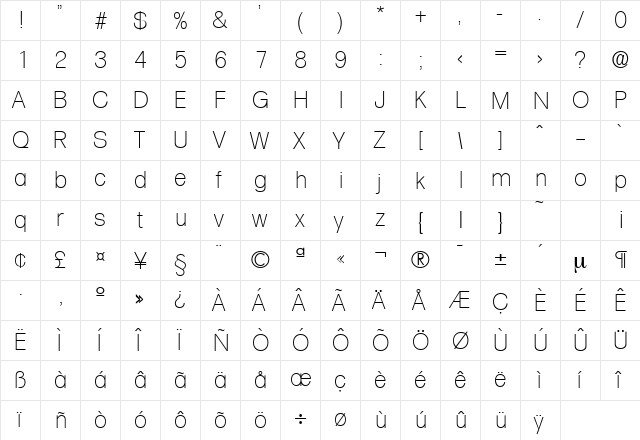
Formula-Serial-ExtraLight Regular
Design Context for Formula-Serial-ExtraLight Typeface
Formula-Serial-ExtraLight is a composed and adaptable typeface that performs quietly and consistently across a wide range of design contexts. The delicate stroke weight brings airiness and refinement to layouts.